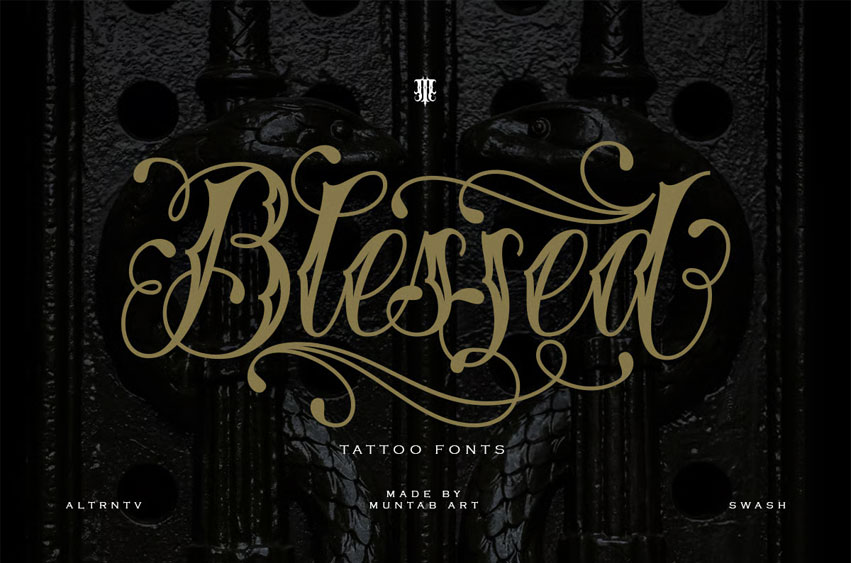
Blessed Tattoo Font
Blessed Tattoo Font Traditional Tattoo Fonts. Blessed fonts includes uppercase and lowercase letters, numerals, a large range of punctuation, and ligatures. All lowercase letters include ending swashes and alternative font.
FEATURES : Uppercase Lowercase Number Punctuation Multilingual Swash Opentype